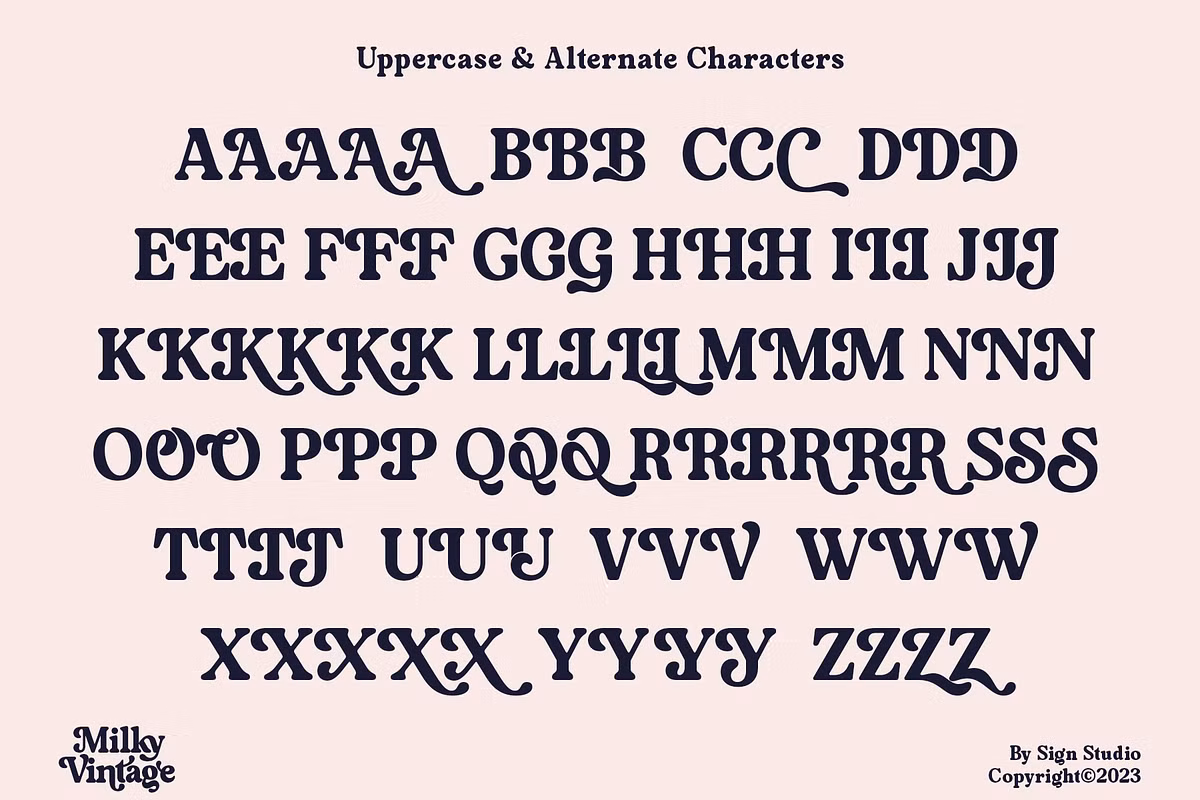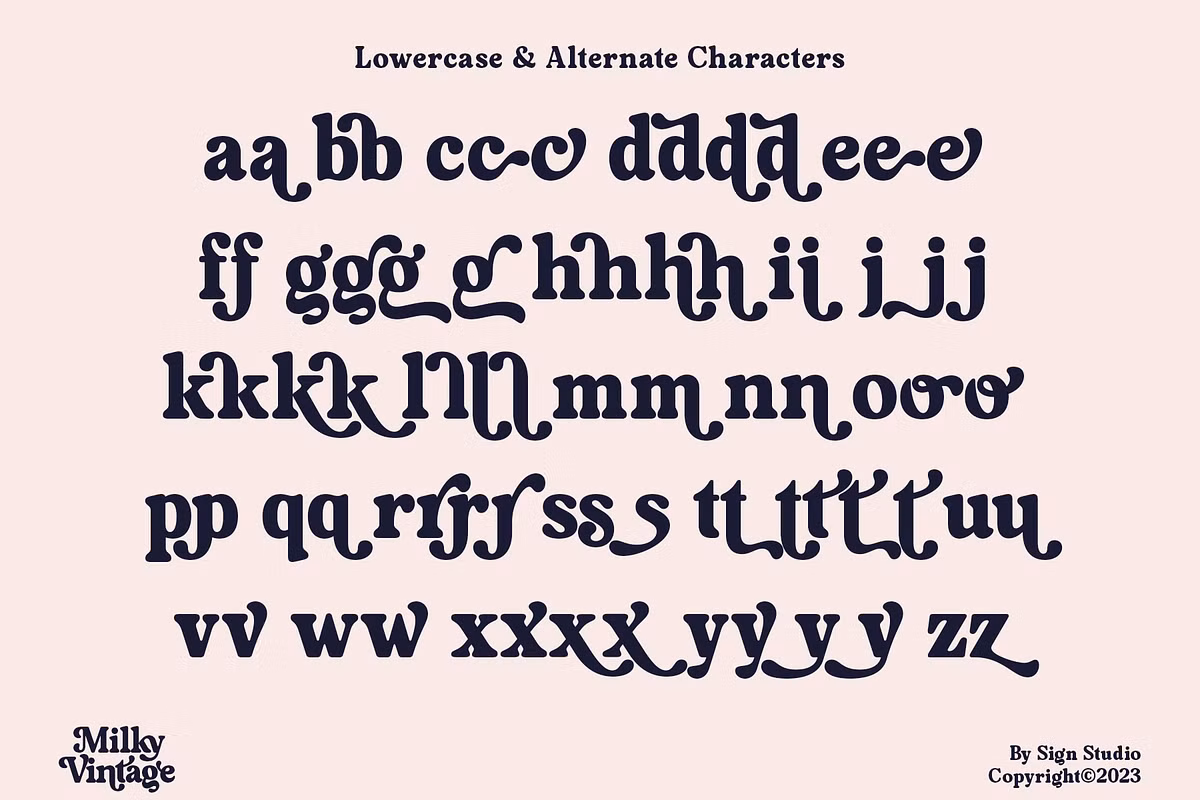
Milky Vintage: Nostalgic Font with Elegant Ligatures for Design
Milky Vintage is a lovely font that brings back memories of the past with its classic look. It’s great for design projects that want to feel cozy and familiar. What makes it special is its one-of-a-kind details, which don’t just make it useful, but also really nice to look at. If you’re a designer who wants to add a bit of sophistication to your work, Milky Vintage is a good choice. Its nostalgic feel can make your designs feel more welcoming and friendly.
Whether you’re working on a project that needs a touch of elegance or just something that feels like home, Milky Vintage can help you get the job done.
Design Style of Milky Vintage
The Milky Vintage style has a classic and sweet look that’s perfect for designs that want to bring back old memories. It’s great for making invitations, posters, and branding materials that need a special touch. This font has a unique charm that takes people back to a simpler time. The soft edges and curves of the letters make it feel friendly and welcoming, which makes it good for both personal and work projects.
It’s a nice way to add some nostalgia to your design and make it stand out. The Milky Vintage style is really timeless and elegant, which means it can fit in with lots of different looks, whether that’s old-fashioned or super modern. This makes it really versatile, so designers can try out all sorts of ideas without messing up the overall appearance of what they’re creating.
Character Sets and Features
The Milky Vintage font has a whole bunch of characters, including some extra options for both big and small letters. This means you can play around with your design and make some really cool, one-of-a-kind layouts. You can mix and match the different characters to create something that’s totally unique. It’s like having a big box of toys to choose from, and you can use them to make your design stand out.
With all these options, you can make your text look really special and interesting. Milky Vintage has a lot to offer, including a wide range of characters. But what really makes it special is the discretionary ligatures that come with it. These ligatures are like the icing on the cake, making your text look smooth and polished. They help the letters flow nicely into each other, creating a neat and tidy appearance that’s sure to catch people’s eye.
Use Cases for Milky Vintage
The Milky Vintage is really flexible, so you can use it in lots of different design situations. Let’s take a look at some examples of how you can use it:
- Wedding Invitations: The romantic and nostalgic feel of this font makes it an excellent choice for wedding invitations, adding a personal touch that reflects the couple’s unique style.
- Greeting Cards: Whether for birthdays or holidays, Milky Vintage can enhance the warmth of your greeting cards, making them more inviting and heartfelt.
- Branding: Businesses aiming for a vintage or artisanal image can incorporate Milky Vintage into their logos, packaging, and promotional materials to create a cohesive brand identity.
- Social Media Graphics: Designers can utilize this font for eye-catching social media posts that stand out in feeds, drawing in more engagement from followers.
When considering how to pair Milky Vintage with other design elements, think about complementary fonts and colors that enhance its nostalgic charm while ensuring readability and aesthetic balance.